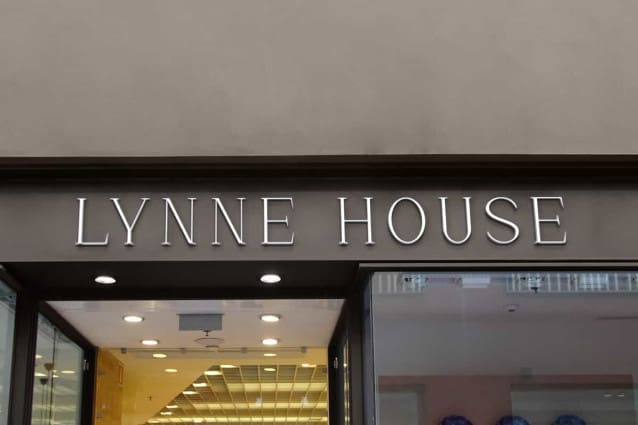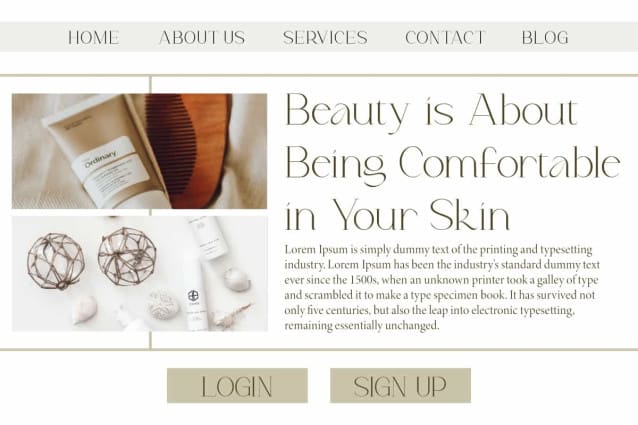
Alie Jasmine Font
Alie Jasmine Font is a sleek, sophisticated and stylish serif display font. This font has an elegant character concept so it gives a clean impression and easy to read. It will be perfect for any designs, such as brand image, cover, custom design, invitation, label, marketing material, menu, poster, product packaging, quotes, signage, stationery, web, and many more!
Alie Jasmine Font includes full set of Uppercase and Lowercase Basic Characters, Numerals and Punctuation. This font also contain Alternate characters that will be perfect choice for many industries, such as advertising, beauty product, cafes, fashion, jewelry and accessories, photography, printing, publishing, restaurant, etc.